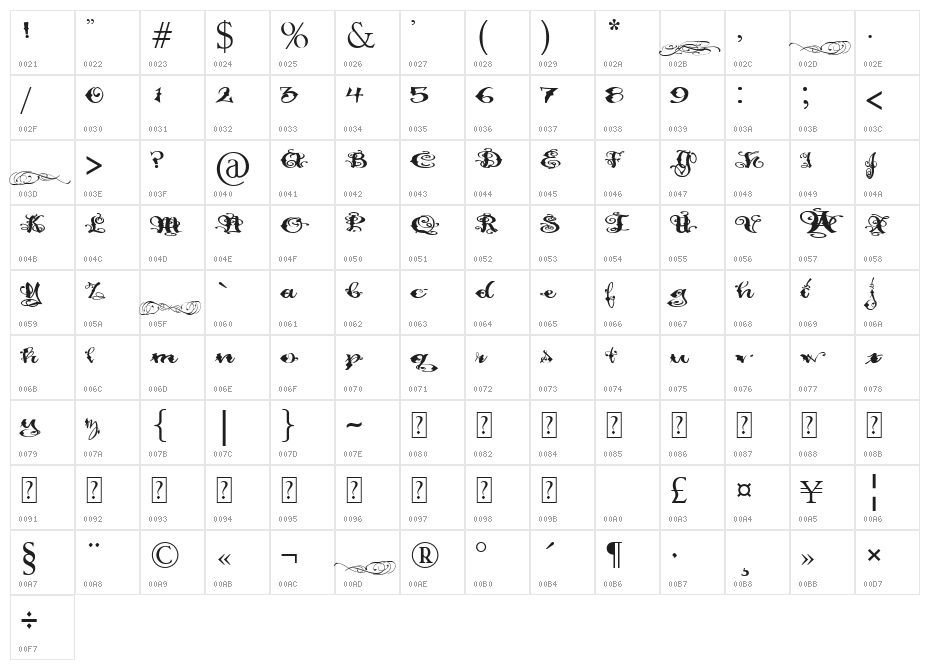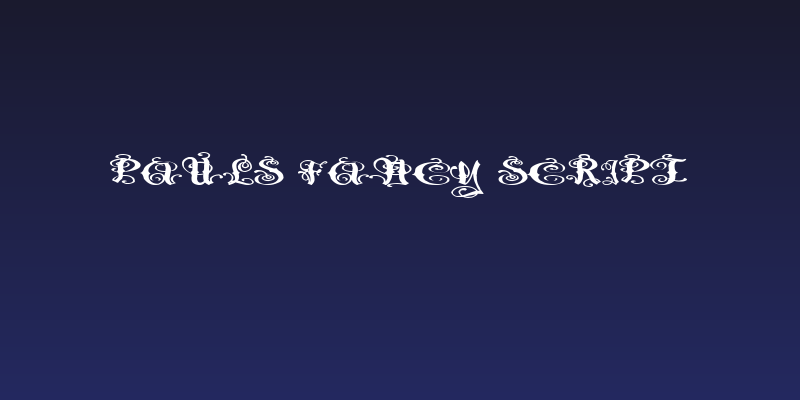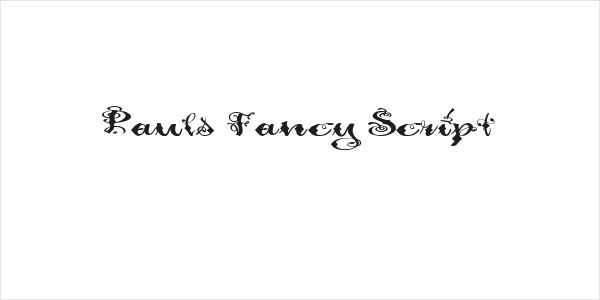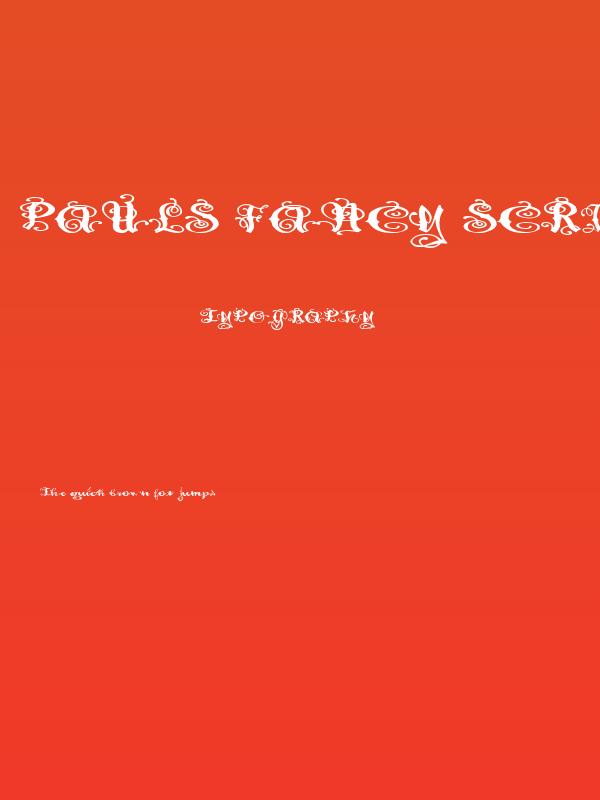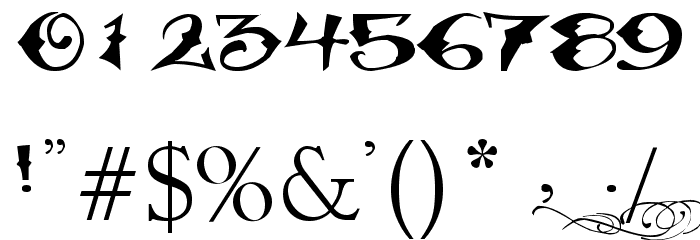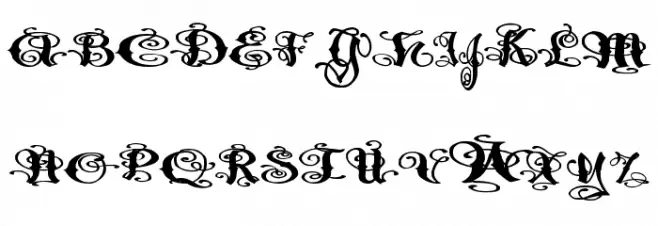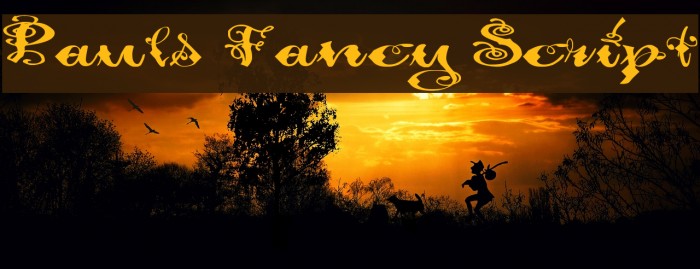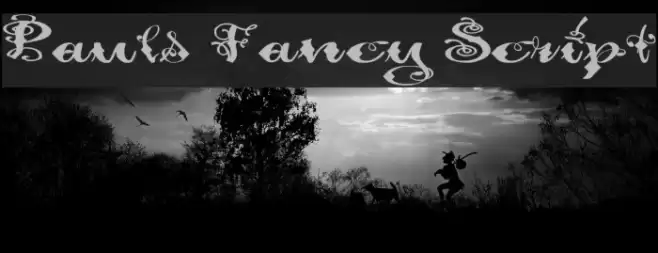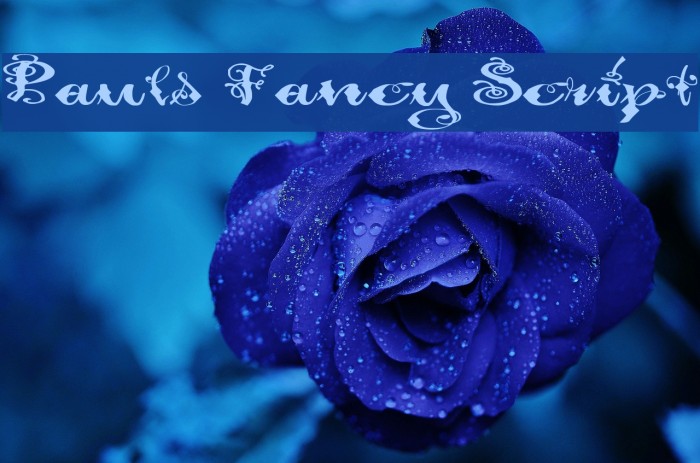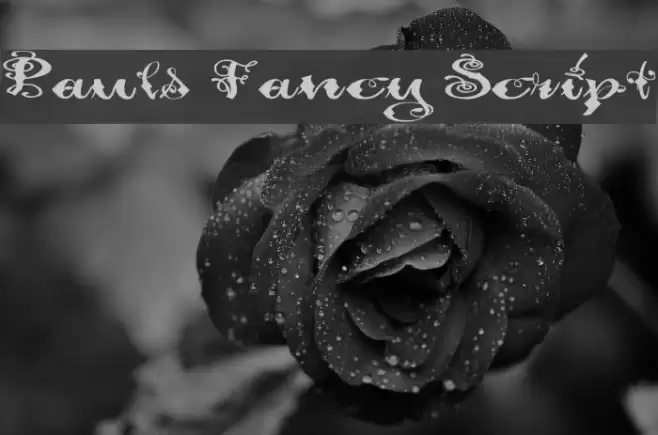
Pauls Fancy Script Font
Pauls Fancy Script Description
This font is an ornate and decorative script style, characterized by its elaborate swirls and flourishes. Each letter is uniquely crafted with intricate details, giving it a luxurious and artistic appearance. The uppercase letters are particularly embellished, while the lowercase letters maintain a flowing, cursive style. The numbers and special characters continue this theme with bold, stylized forms that match the overall aesthetic. This font is ideal for projects that require a touch of elegance and sophistication, such as invitations, branding, or artistic designs.
| Use Case | Logos, Invitations, Decorative text |
| Proposed Projects | Ideal for wedding invitations, luxury branding, artistic posters, and decorative signage. |